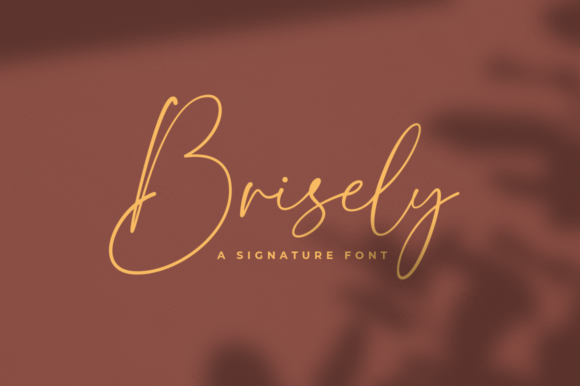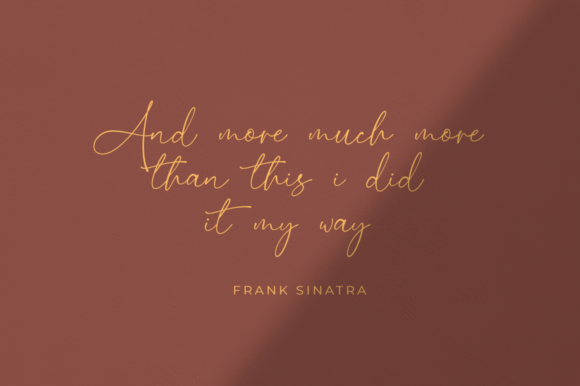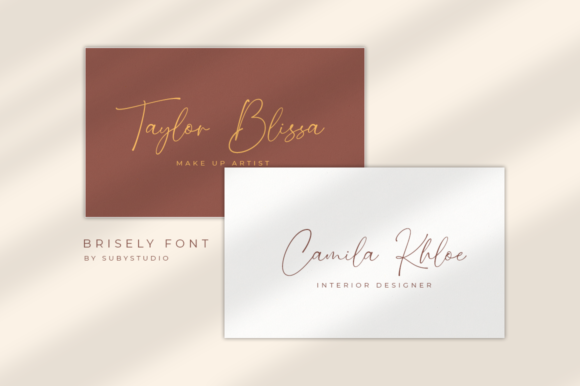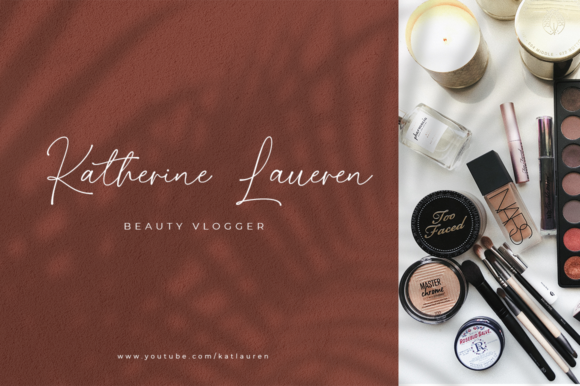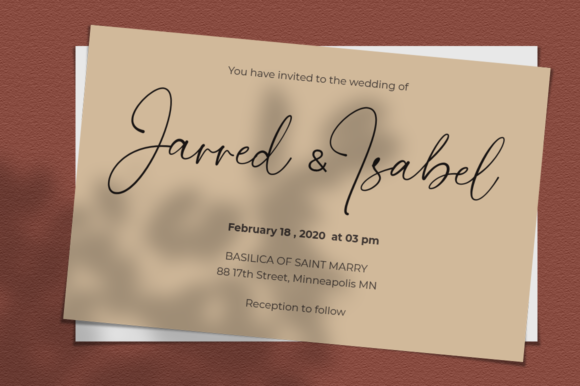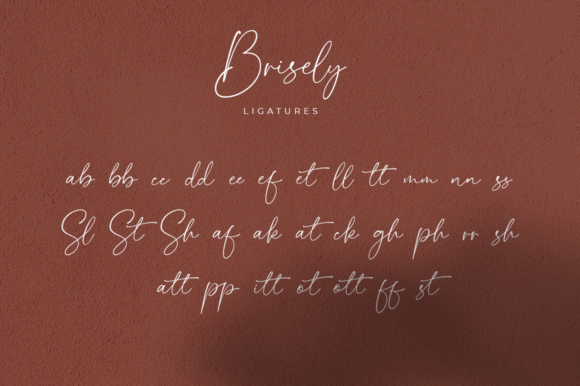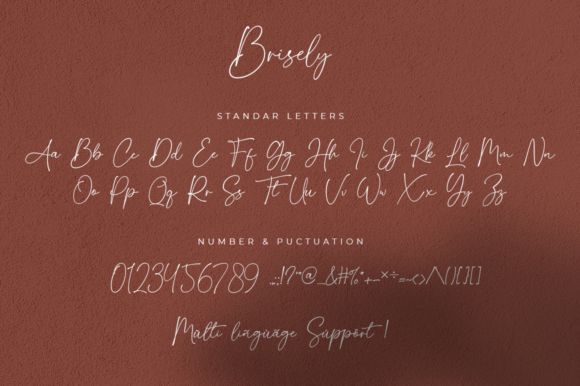
HomeScript FontsBrisely Font Script Fonts Brisely Font FacebookXPinterestWhatsApp Brisely Font Poster 2 Brisely Font Poster 3 Brisely Font Poster 4 Brisely Font Poster 5 Brisely Font Poster 6 Brisely Font Poster 7 About Brisely Font Brisely is an elegant signature font. It’s perfect for branding, wedding designs, invitations, and much more! DOWNLOAD ON CREATIVE FABRICAThis font is sold and delivered by Creative Fabrica. Font Canyon may earn a commission if you buy through this link. People also explored Mellifluous Font Amorita Font Messy Marker Font Hanania Font Rosallita Font Bunny Font Creatify Font Directors Script Posteraphy Font 273 0 TagsBrisely Font Previous articleGrouper Monster FontNext articleMothius Font LEAVE A REPLY Cancel reply Comment: Please enter your comment! Name:* Please enter your name here Email:* You have entered an incorrect email address! Please enter your email address here Website: Save my name, email, and website in this browser for the next time I comment. Personal Use Free Happy Camping Personal Use Free Read more about this font Pumpkin Type Halloween Font Personal Use Free Read more about this font Latifah Personal Use Free Read more about this font Delions Personal Use Free Read more about this font BLOG Top 10 Handwritten Fonts That Elevate Your Designs Top 10 Handwritten Fonts That Will Elevate Your Designs Handwritten fonts bring a warm, personal touch to every creative project. Whether you're designing logos, invitations,... Fonts That Capture the Spirit of New York City Top 7 Google Fonts Alternatives for Faster and Privacy-Friendly Web Design (2025) Exploring Font Trends